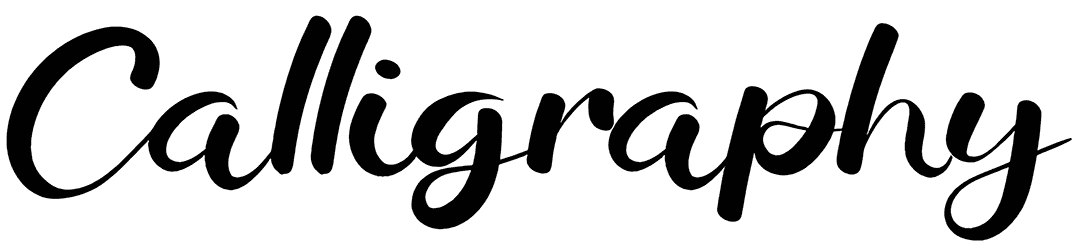
Calligraphy Font
As an amazing offer for your modern design, a smooth, handwritten font like this one will lend it an engaging mood. Calligraphy fonts have a full range of characters with a curvy and ravishing visual. You can benefit from this calligraphy font to adorn your birthday party Instagram story and capture a lot of viewers.